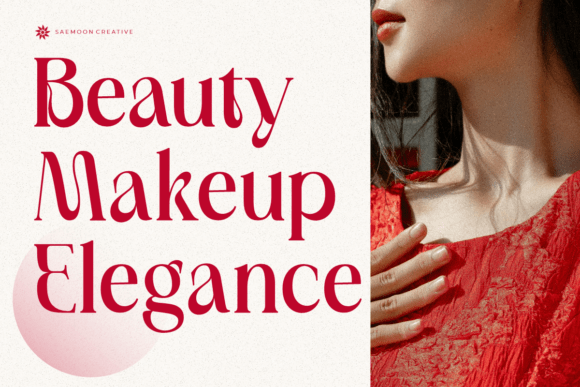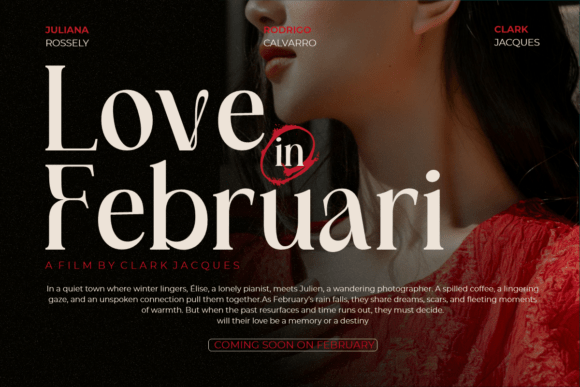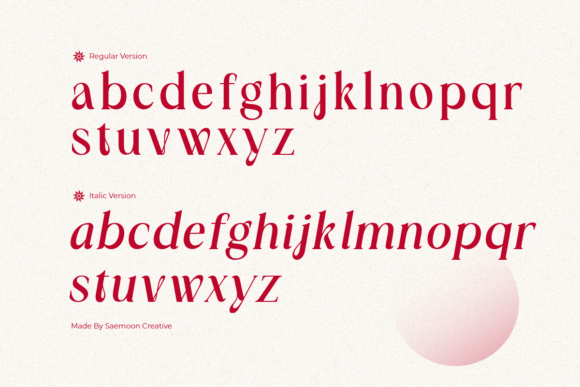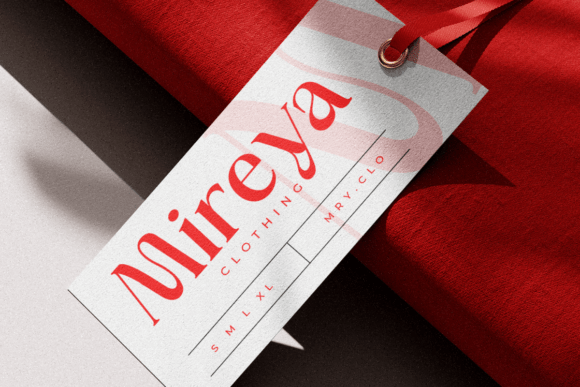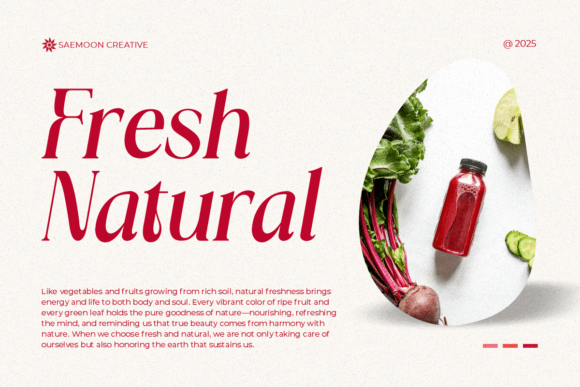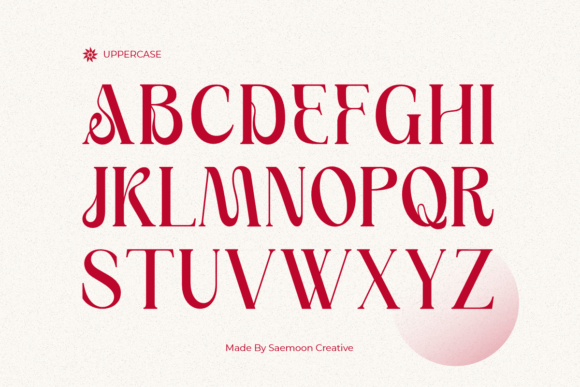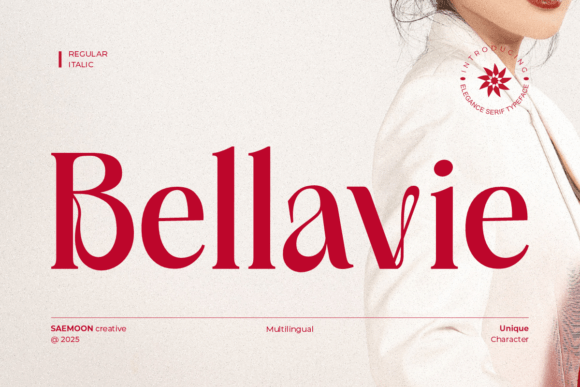
Bellavie Font: Elevate Your Designs with Elegance and Sophistication
In the world of typography, a font can make or break the aesthetic of a design. For designers and crafters seeking to infuse their projects with a touch of luxury, sophistication, and modernity, the Bellavie font is an exquisite choice. This elegant serif font boasts a delicate feminine touch and a distinctive character that sets it apart from more traditional typefaces. With its balanced proportions, soft yet defined serifs, and unique details, Bellavie exudes grace and refinement, making it perfect for a variety of high-end applications.
The Characteristics of Bellavie Font
Bellavie is designed with the utmost attention to detail, showcasing letterforms that are both aesthetically pleasing and highly legible. Its key features include:
• Balanced Proportions: Each letterform in Bellavie is crafted with balanced proportions, ensuring that the font is harmonious and visually appealing in a wide range of design contexts.
• Soft yet Defined Serifs: The serifs in Bellavie are elegantly softened, giving the font its characteristic feminine touch while maintaining a level of sophistication and refinement.
• Unique Details: What sets Bellavie apart is its unique details, which add a modern twist to the classic serif font. These details contribute to its distinctive character, making it stand out in the world of typography.
Applications of Bellavie Font
Given its elegant and sophisticated appeal, Bellavie is versatile and can be used across various design projects, including:
• Luxury Branding: For brands that aim to convey elegance, sophistication, and a high-end feel, Bellavie is an ideal choice. It can be used in logos, packaging, and marketing materials to create a cohesive and luxurious brand image.
• Fashion Editorials: In the fashion world, typography plays a crucial role in conveying style and elegance. Bellavie, with its refined and captivating look, is perfect for fashion editorials, adding a touch of glamour and sophistication to any publication.
• Exclusive Packaging: For products that require a premium feel, such as high-end cosmetics, jewelry, or gourmet foods, Bellavie can be used to create labels, packaging, and promotional materials that exude luxury and exclusivity.
• Aesthetic Social Media Designs: In the digital realm, standing out on social media is crucial. Bellavie can be used to create visually appealing social media posts, stories, and banners that capture the audience’s attention and reflect a brand’s sophisticated personality.
Why Choose Bellavie Font?
Bellavie offers a unique blend of elegance, sophistication, and modernity, making it a valuable addition to any designer’s font collection. Here are a few reasons why Bellavie stands out:
• Sophisticated Appeal: Bellavie embodies a level of sophistication that is hard to achieve with more common fonts. Its elegant serifs and refined details make it perfect for designers looking to create high-end designs.
• Versatility: Despite its specific design characteristics, Bellavie is surprisingly versatile. It can be used in a variety of contexts, from luxury branding to fashion editorials, without losing its impact or elegance.
• Uniqueness: In a sea of generic fonts, Bellavie offers a breath of fresh air with its unique details and distinctive character. Using Bellavie can help designers create designs that stand out and are memorable.
Bellavie font is a masterpiece of modern typography, offering a perfect blend of elegance, sophistication, and uniqueness. Its delicate feminine touch, combined with its distinctive character, makes it an ideal choice for designers and crafters aiming to create refined, captivating, and high-end designs. Whether it’s for luxury branding, fashion editorials, exclusive packaging, or aesthetic social media designs, Bellavie is sure to elevate any project to new heights of style and sophistication.
Incorporating Bellavie into your design projects is a straightforward way to ensure that your work stands out in a crowded digital landscape. Its timeless elegance and modern charm make it a valuable asset for any designer looking to make a lasting impression.